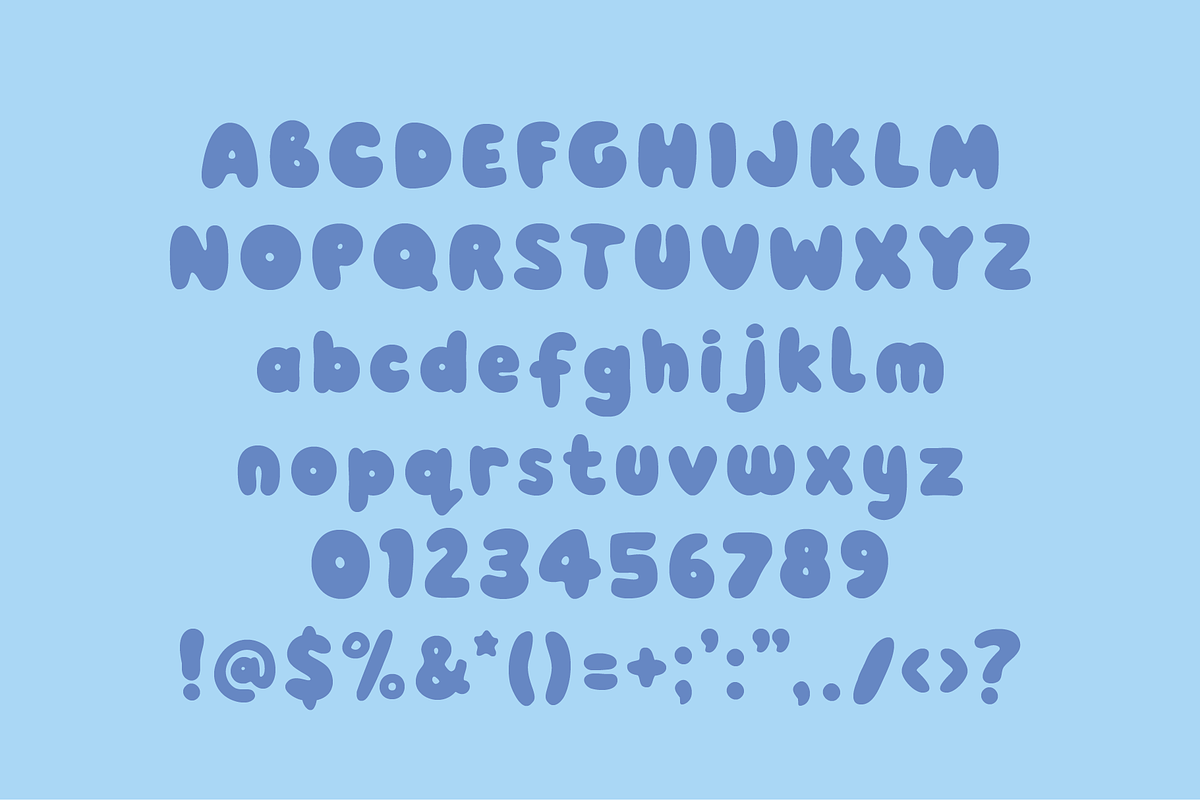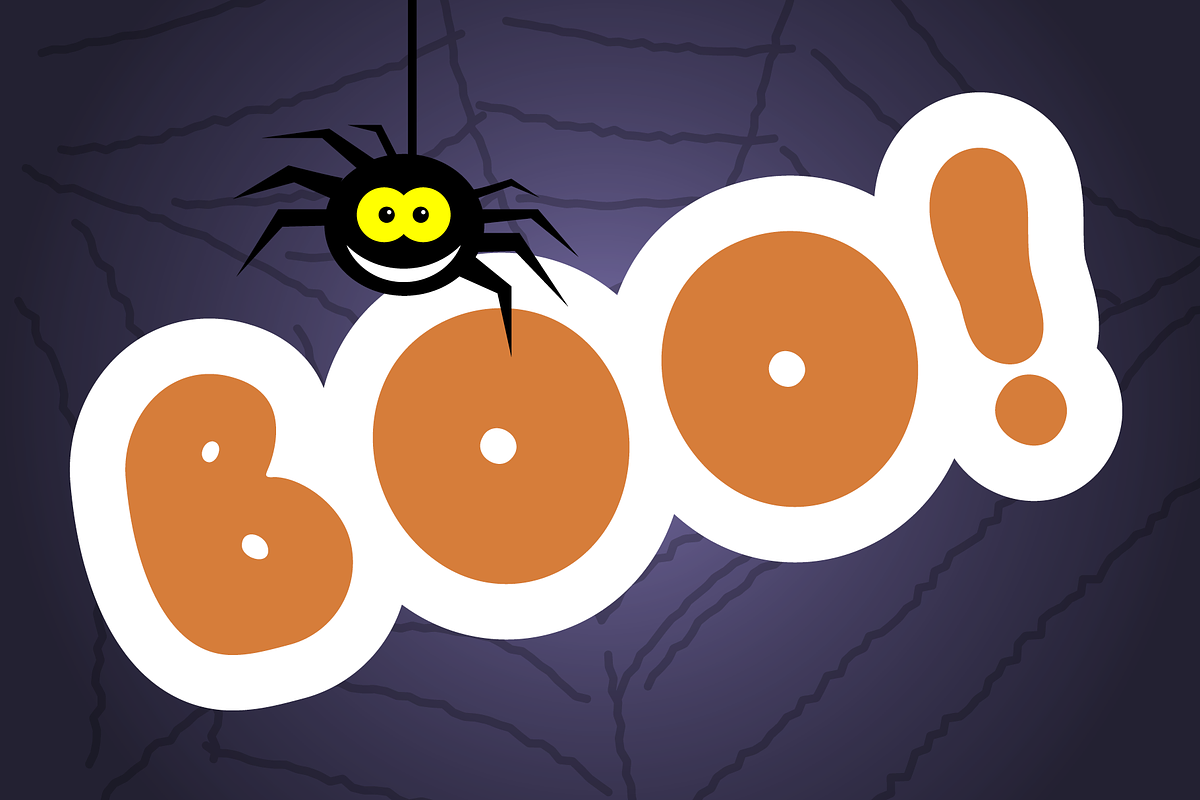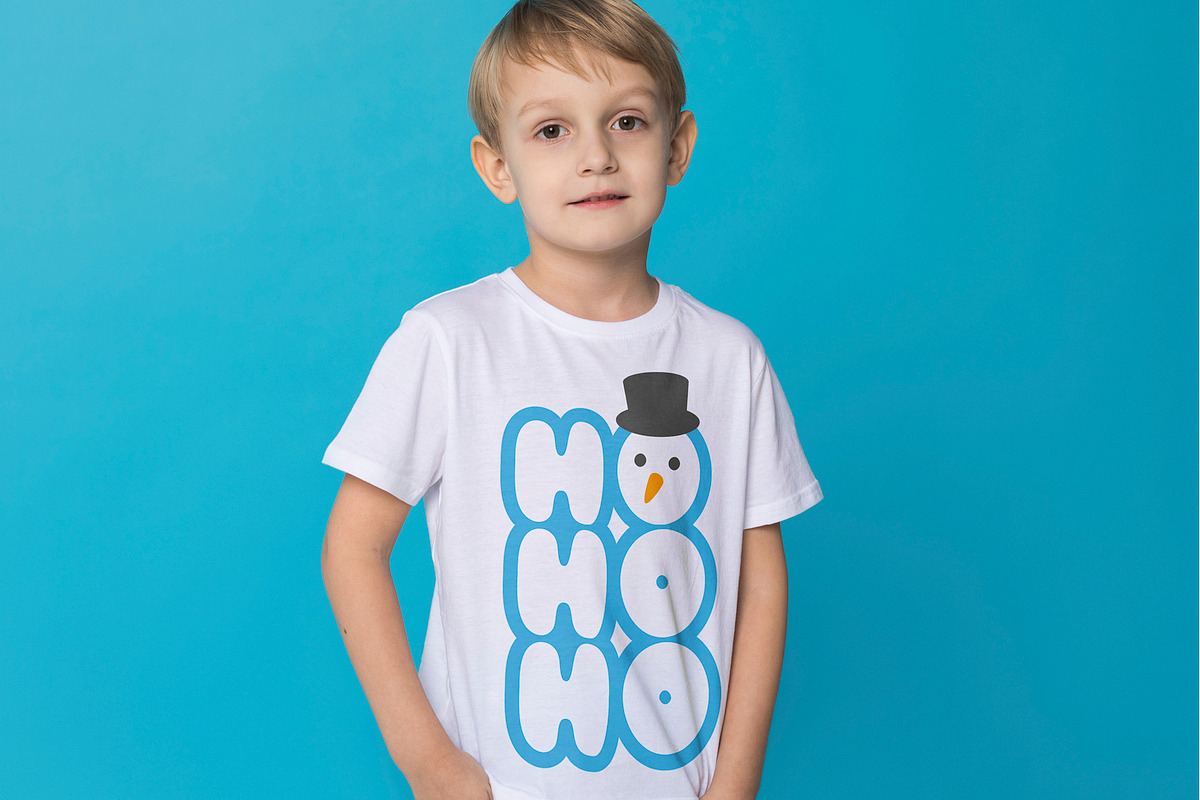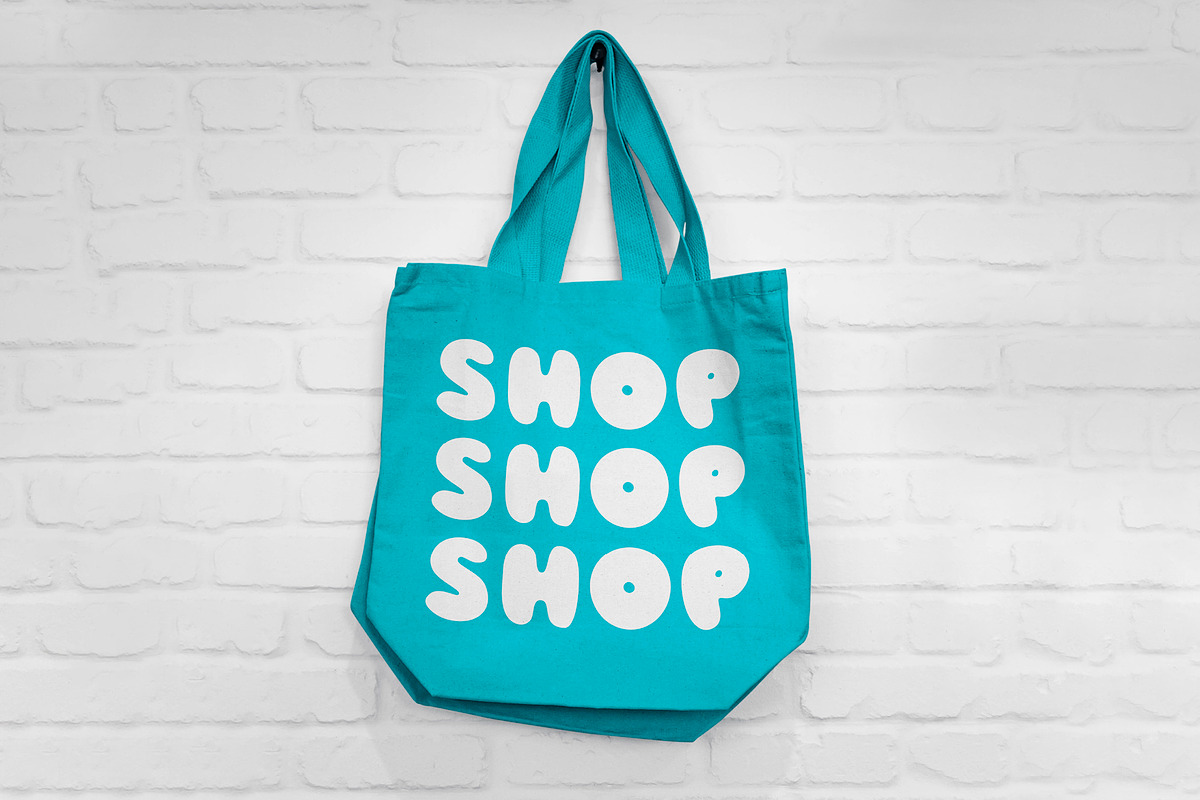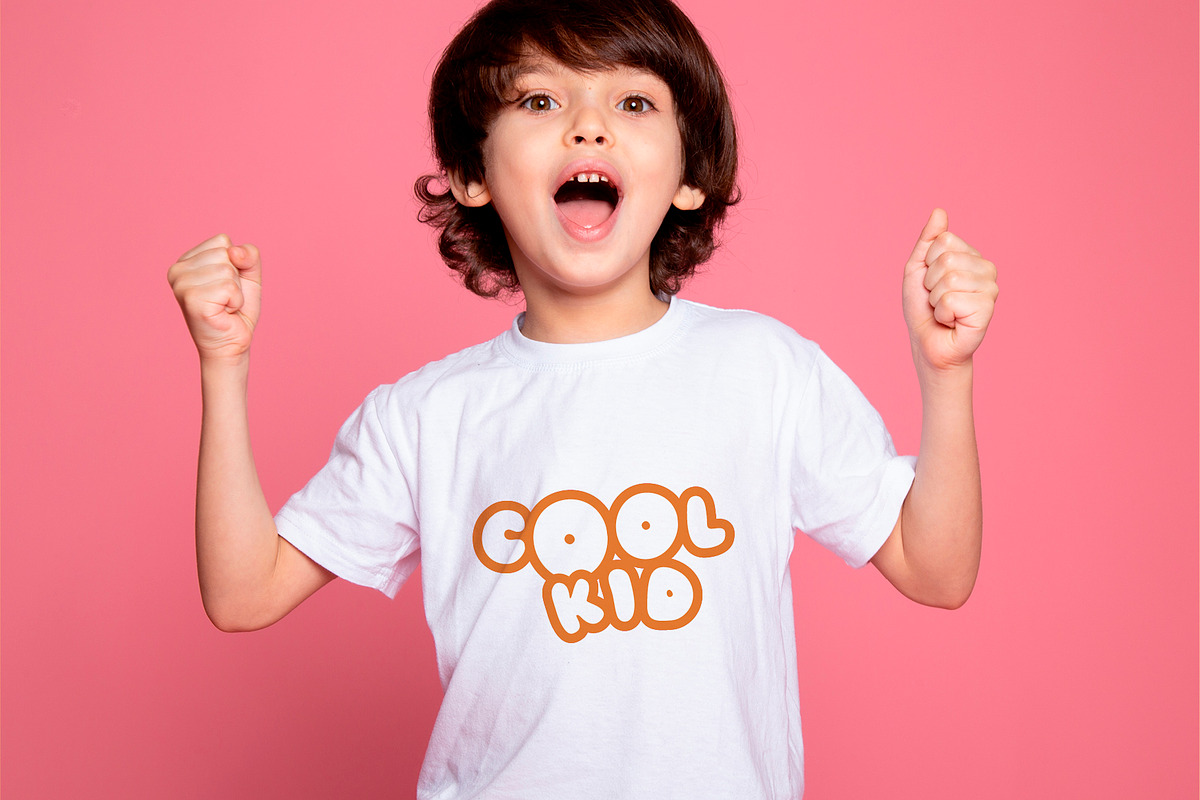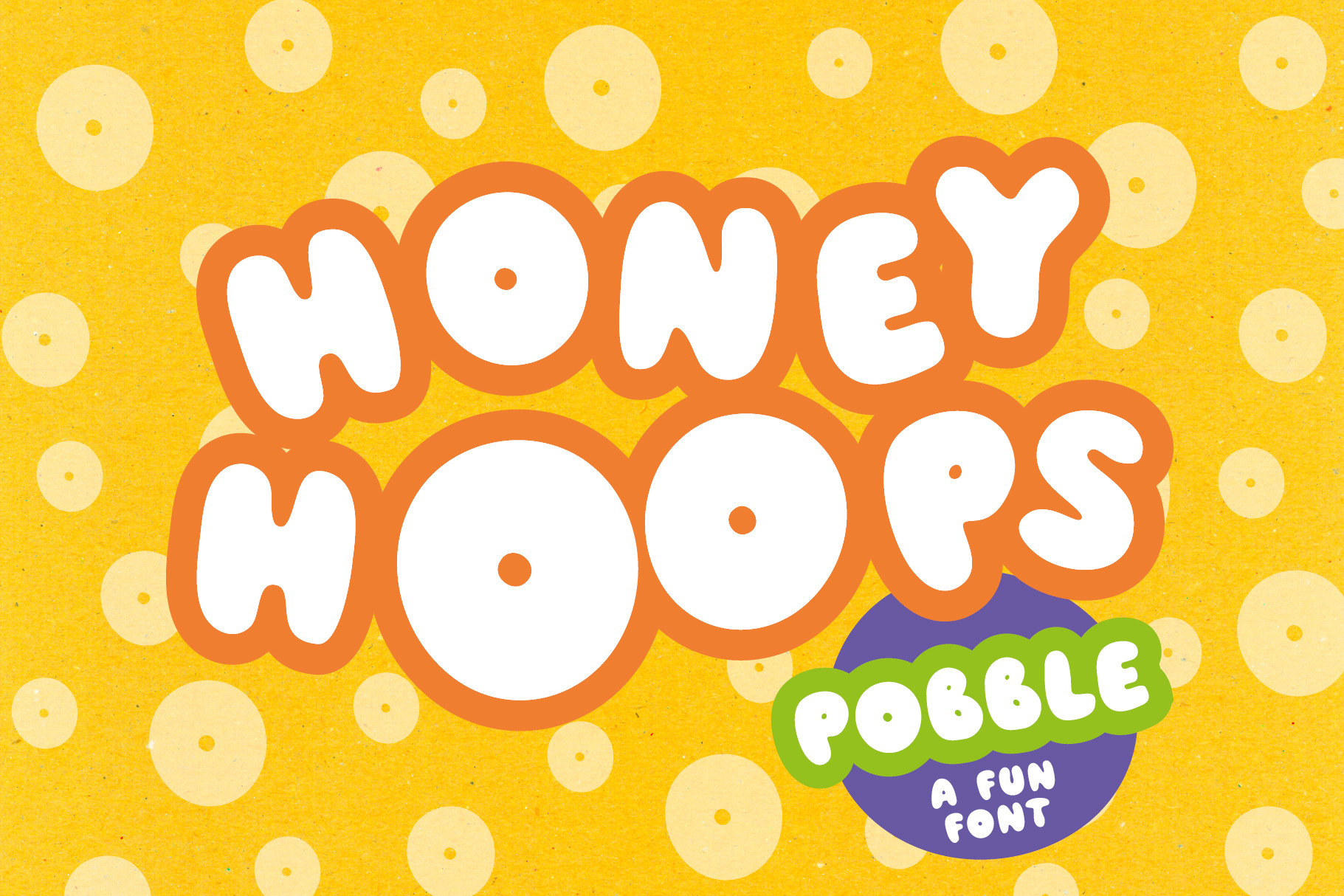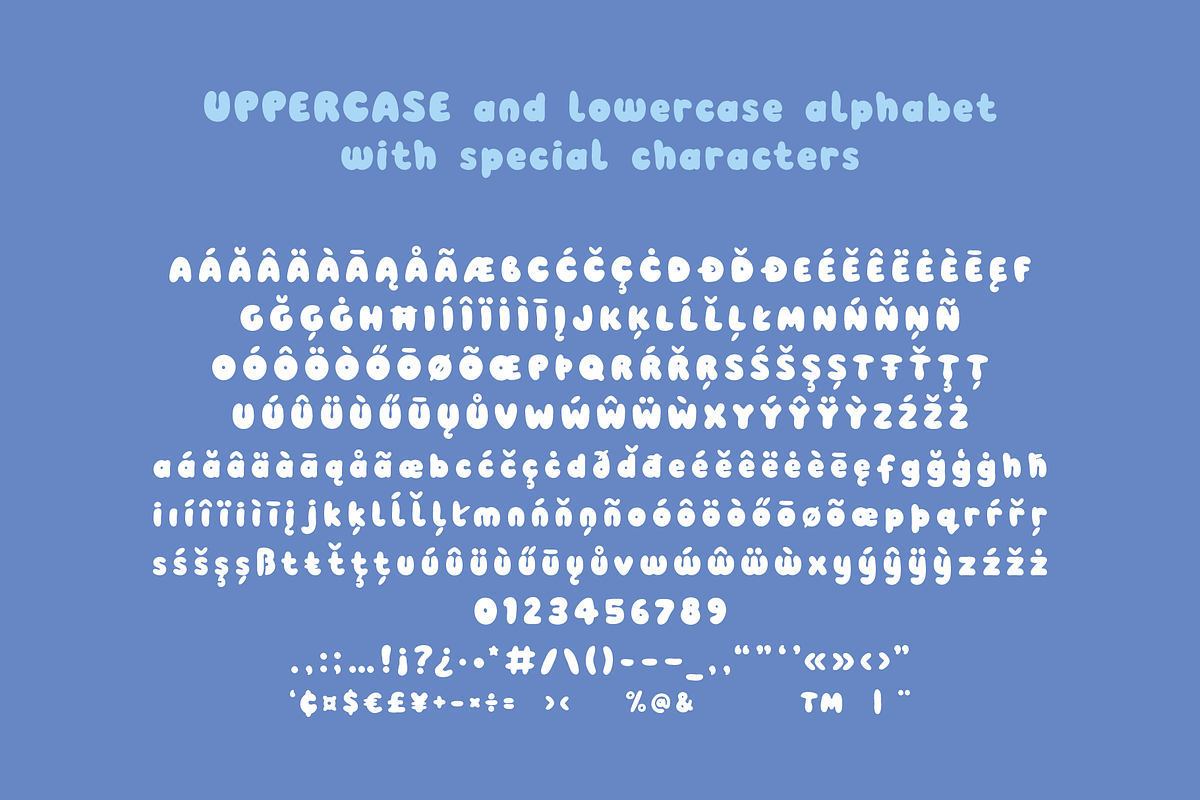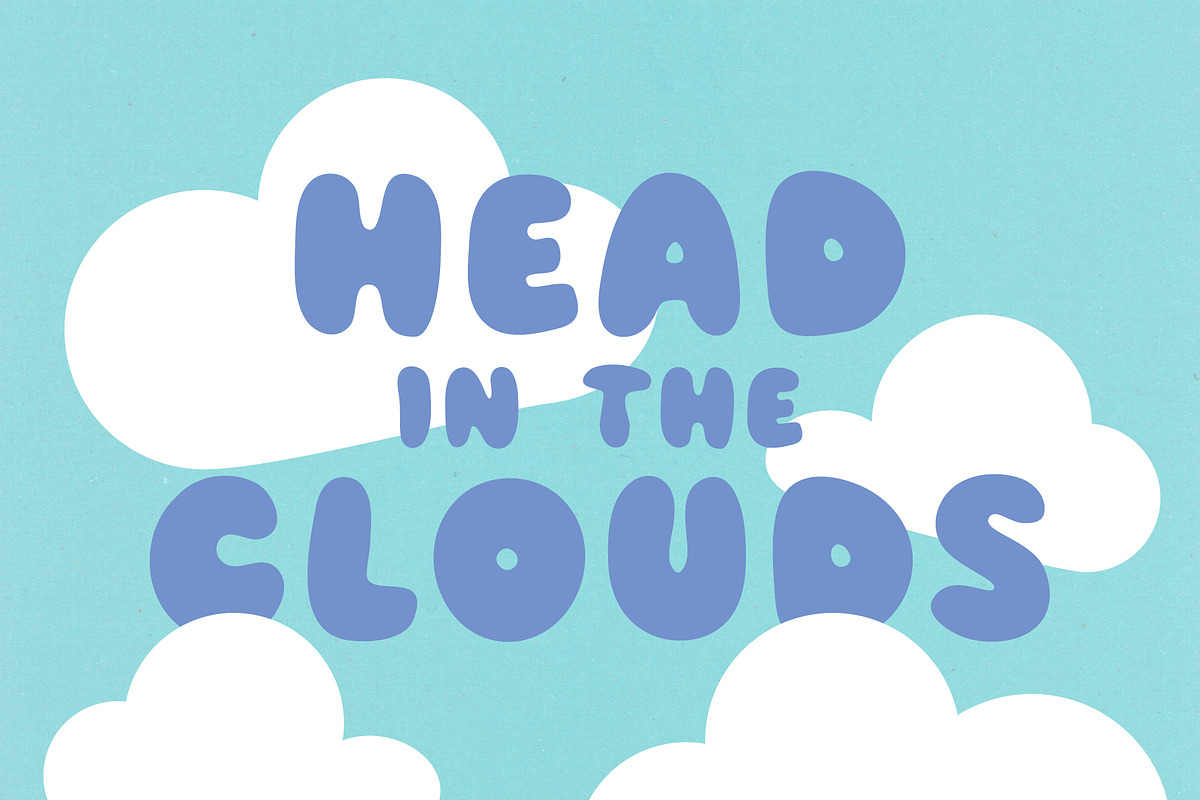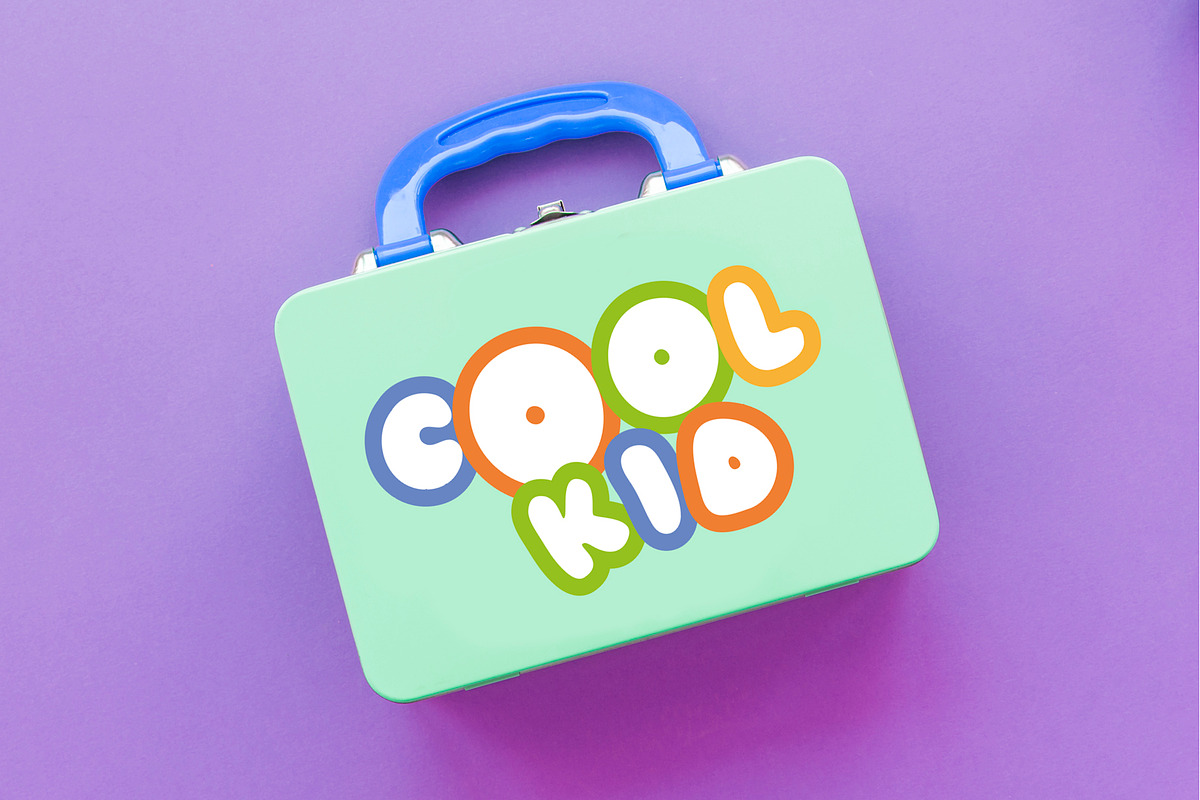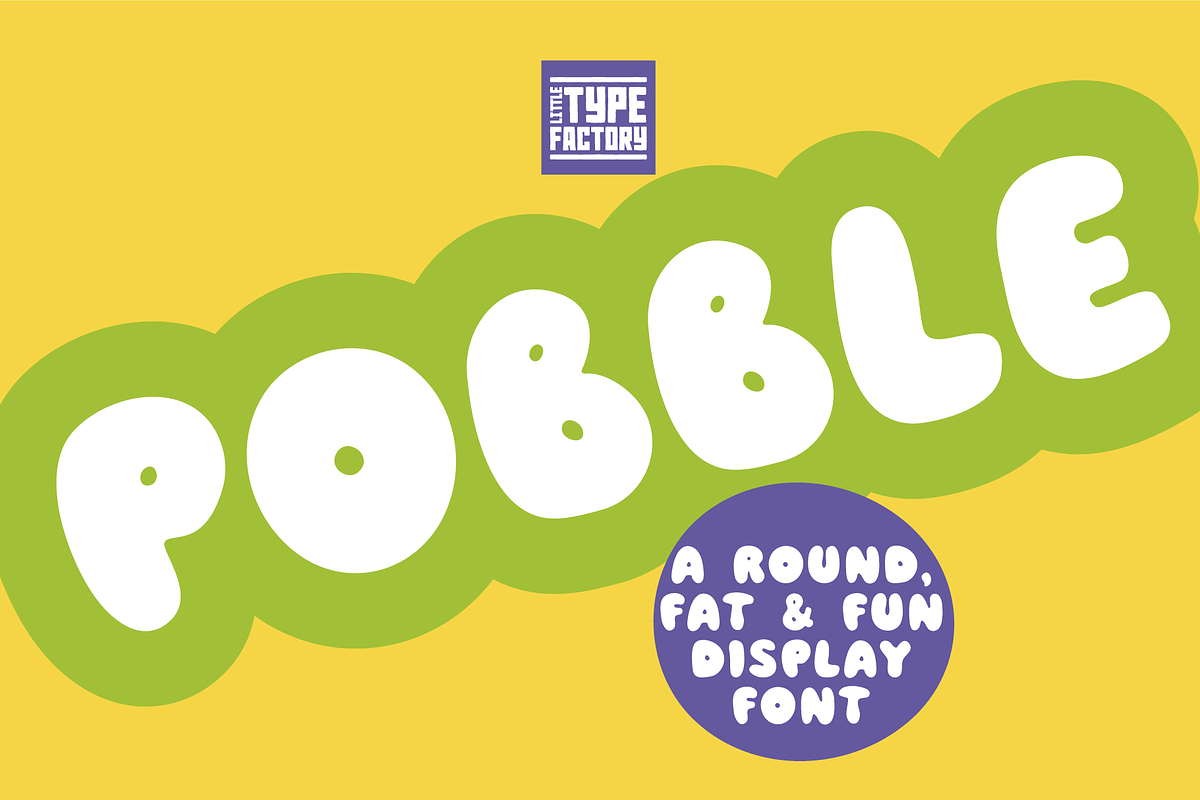
Pobble - a cartoon comic font!!!
Pobble. A fun, fat and round display font.
A cartoon font. A comic book font. A bubble font. A boy font. AND a fun font. It's full of goodness! Smooth and funky, for use in headlines and quotes or perhaps on a t-shirt, bag, mug, greetings cards..... Designed especially to be used in all UPPERCASE but has lowercase option too. If you're struggling to find a good boy font, a font that's fun and robust, this is it! Great for products, merchandise and branding. It is full of character and makes a big impact!
Full uppercase, lowercase and special characters. Includes the full European character set including western, central and south eastern glyphs.